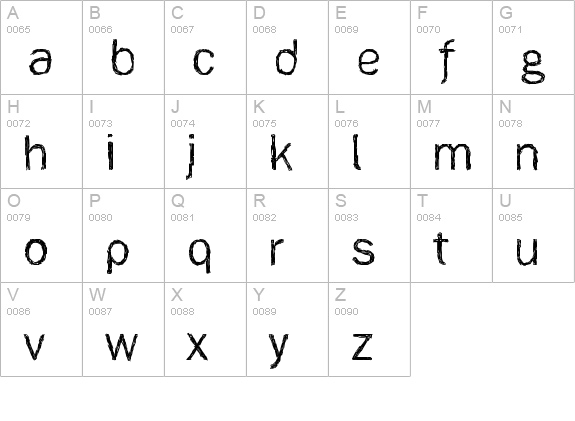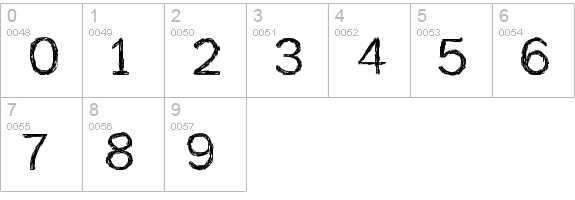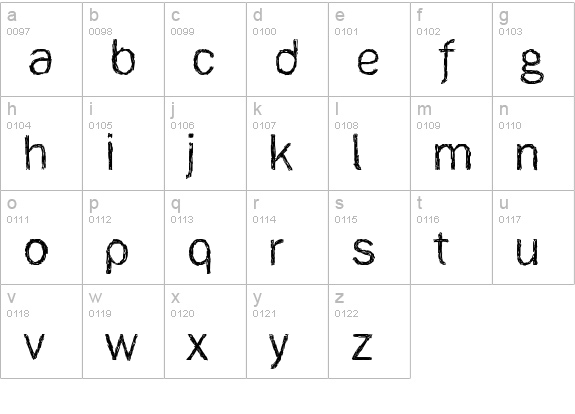
Introducing the stylish and versatile [ank]* font, a modern typeface that combines elegance with a touch of playfulness. This beautifully crafted font is perfect for a wide range of design projects, from branding to social media graphics and beyond. The sleek lines and unique character shapes of [ank]* font will make your text stand out and grab attention. What's even better is that [ank]* font is available for free download at FontsMarket.com. Yes, you read that right - this high-quality font is completely free for you to use in your personal and commercial projects. So go ahead and elevate your designs with the exquisite charm of [ank]* font, now easily accessible for download at FontsMarket.com.